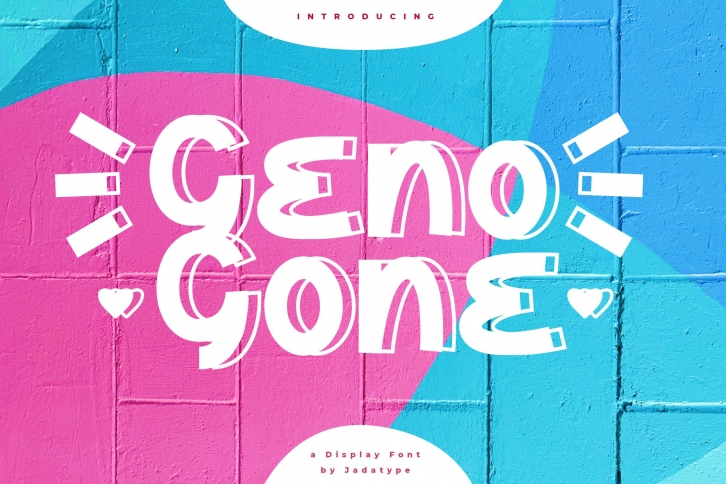
Geno Gone is a fun display font. Playful and interesting, it is suitable for social media posts, crafts, clothing designs, merchandise design, and many more! Add it now to your creative projects, and make them outstanding!